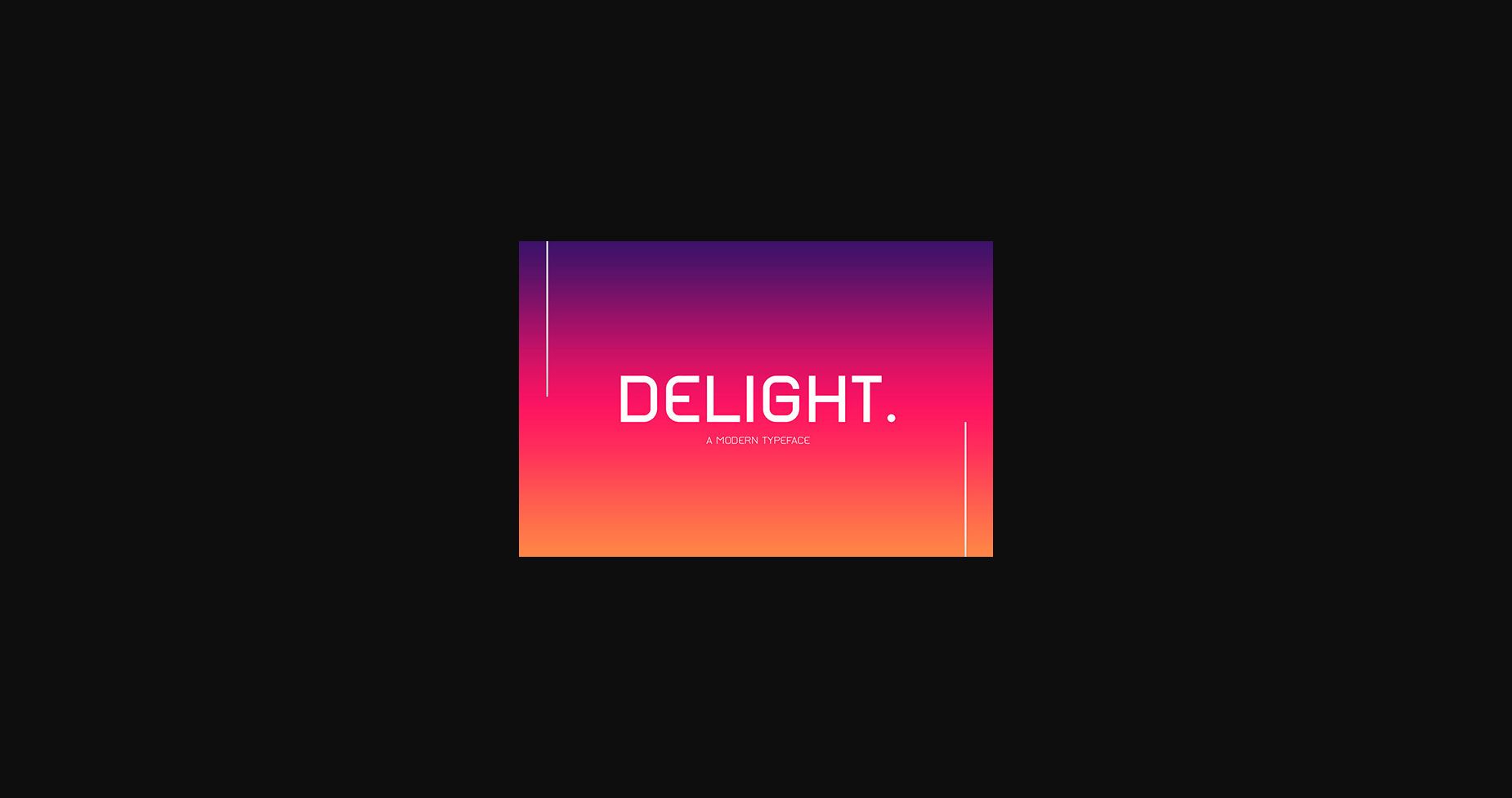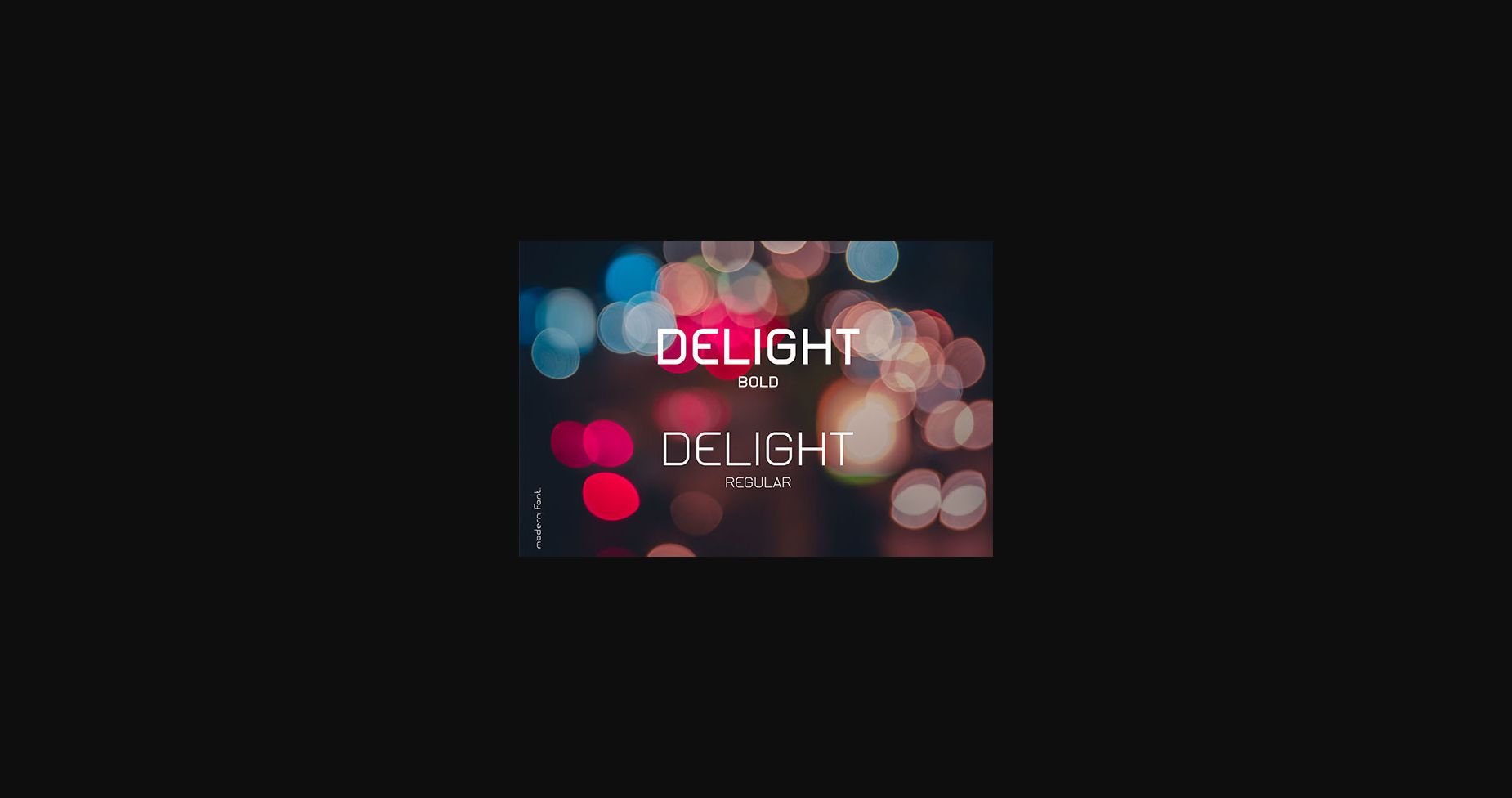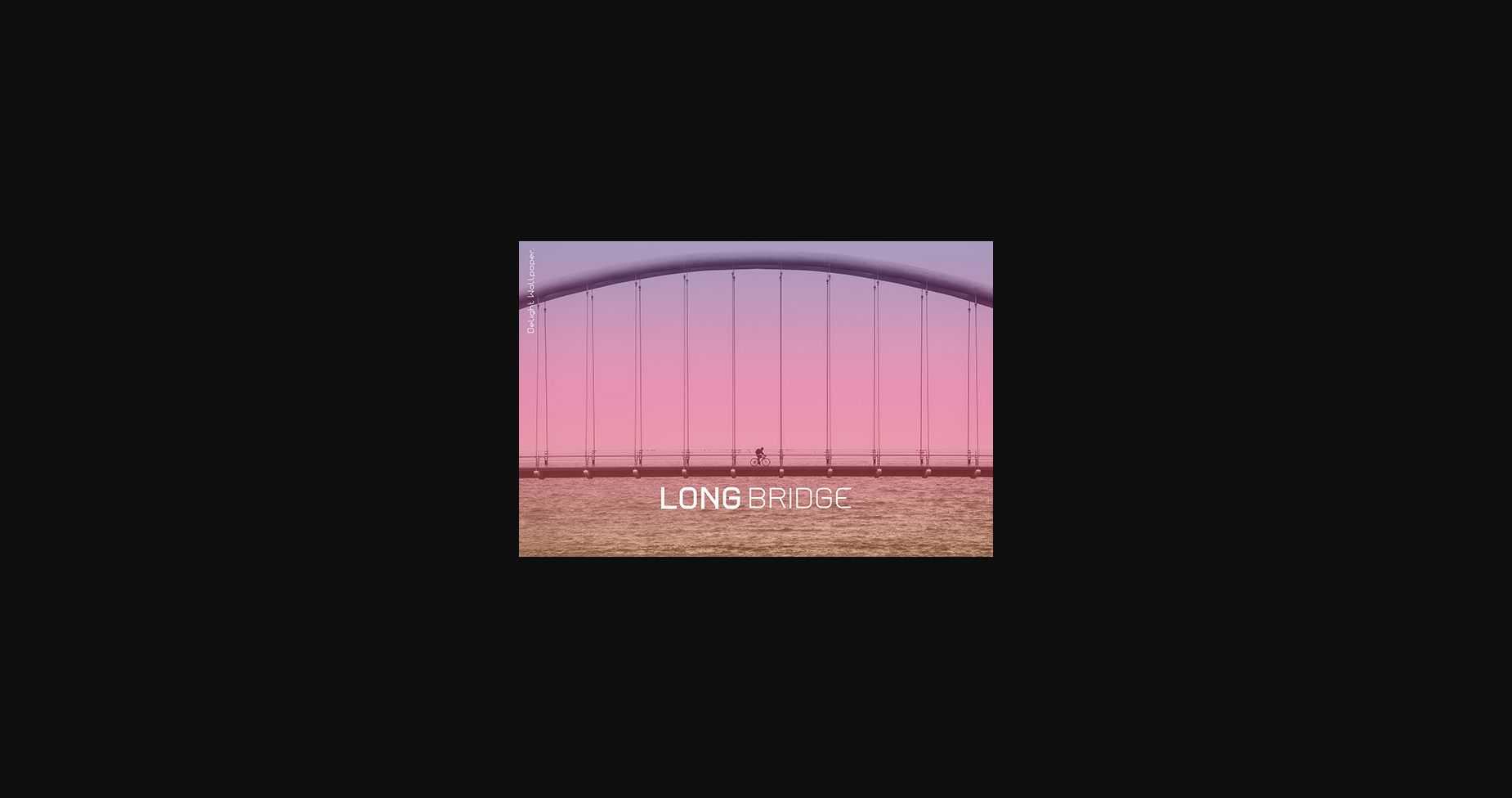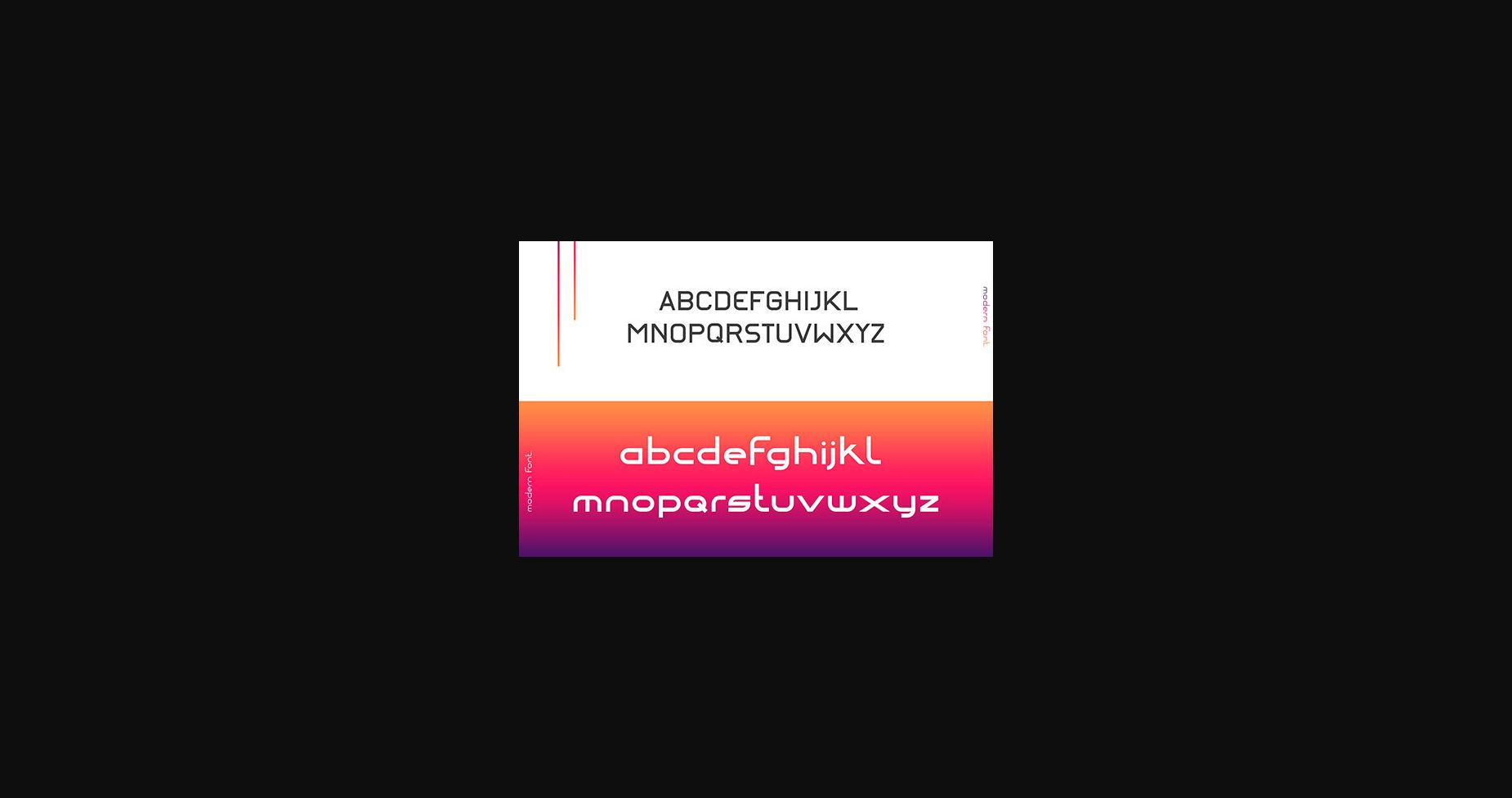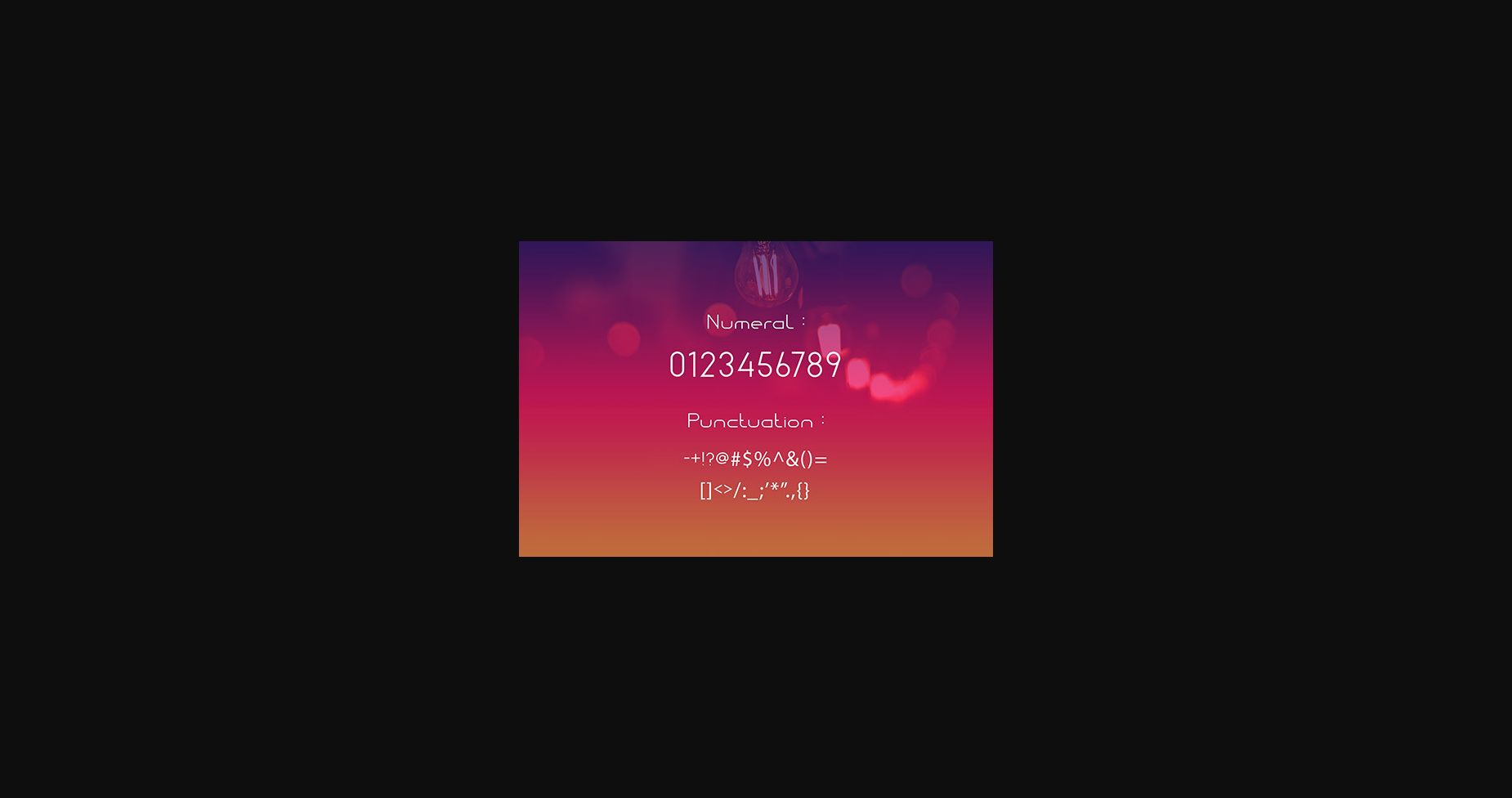
Delight font is a modern sans serif font. Suitable to a wide variety of designs due to its neat and simple style, this font has the potential to become your favorite go-to font, no matter the occasion!